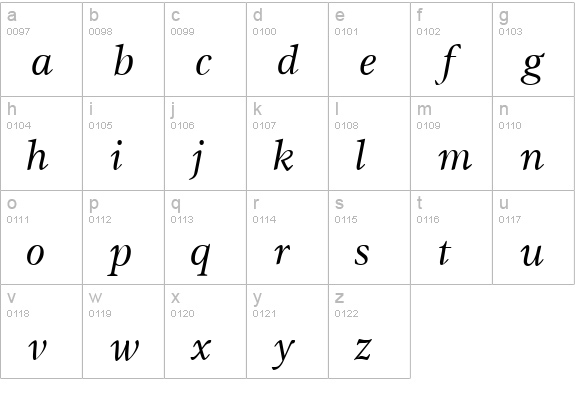
Gamma Italic is a distinctive, italic variant in the Gamma typeface family \xE2\x80\x94 well suited to design and typography projects.
Gamma Italic is a visually stunning font that combines elegance and modernity in a perfect balance. Its sleek and slanted letterforms exude a sense of sophistication, making it the ideal choice for any project that requires a touch of stylishness. This font is not only visually appealing but also extremely versatile. Whether you are designing a logo, creating a website, or working on a print project, Gamma Italic will effortlessly elevate the overall aesthetic and leave a lasting impression on your audience. One of the most remarkable features of Gamma Italic is that it is available for free. Yes, you heard it right! This remarkable font can be freely downloaded from FontsMarket.com, a reputable source for high-quality fonts. So, you can enjoy the benefits of this exceptional font without any financial constraints. With its smooth curves and graceful slant, Gamma Italic adds a sense of dynamism and elegance to any design. Its legibility remains intact, even at smaller sizes, ensuring that your message is effectively communicated to your target audience. Whether you are a professional designer or someone looking to add a touch of sophistication to your personal projects, Gamma Italic is the perfect choice. Its timeless beauty and freely available nature make it a font worth adding to your collection. Download it today from FontsMarket.com and let your creativity soar with this remarkable typeface.